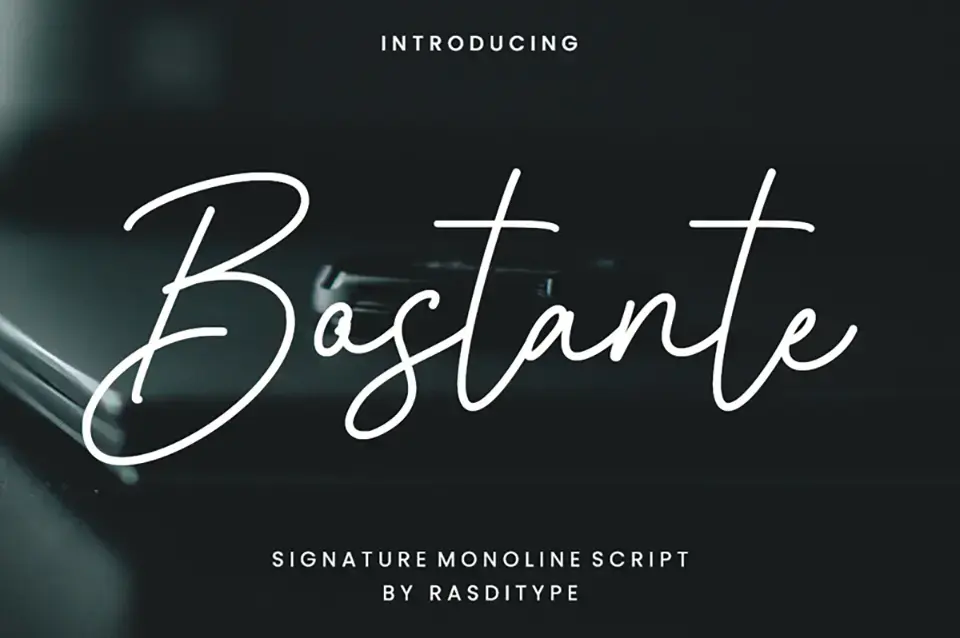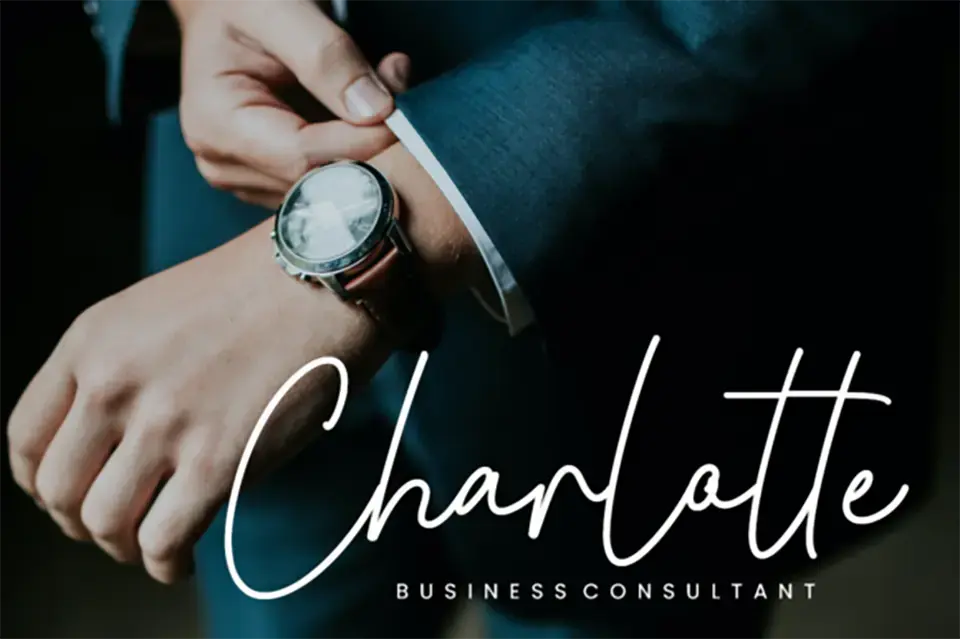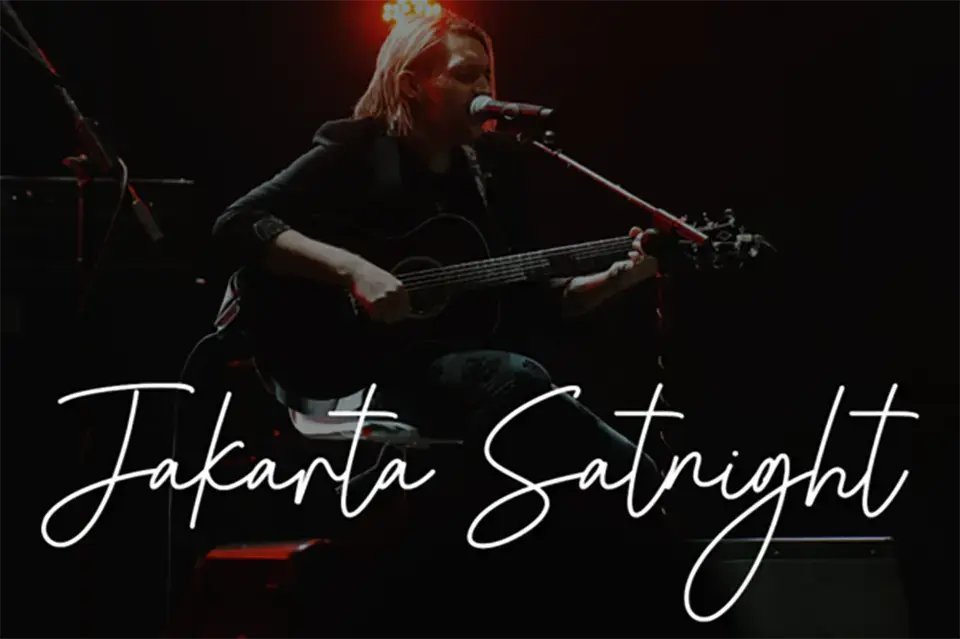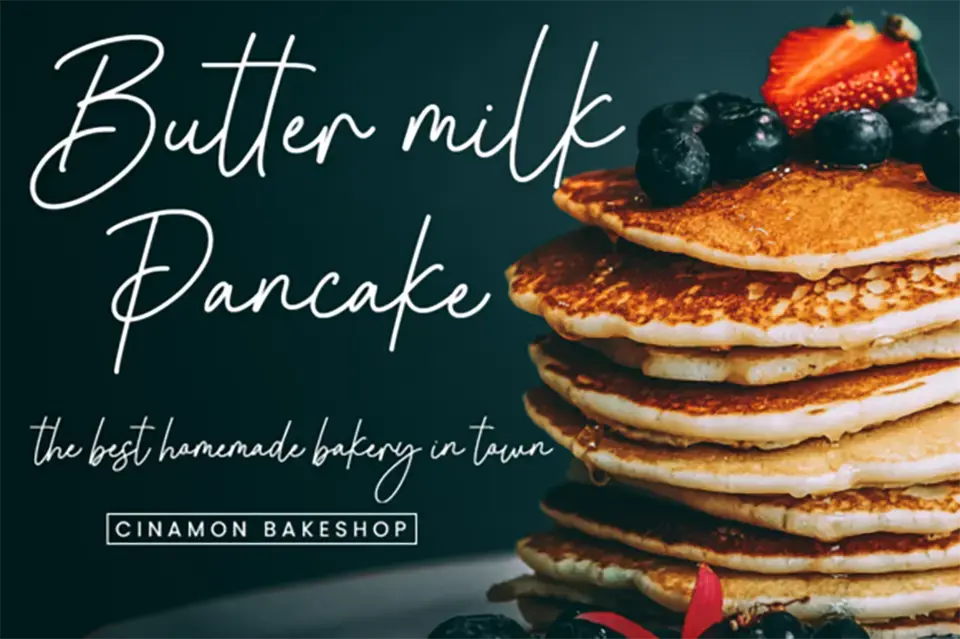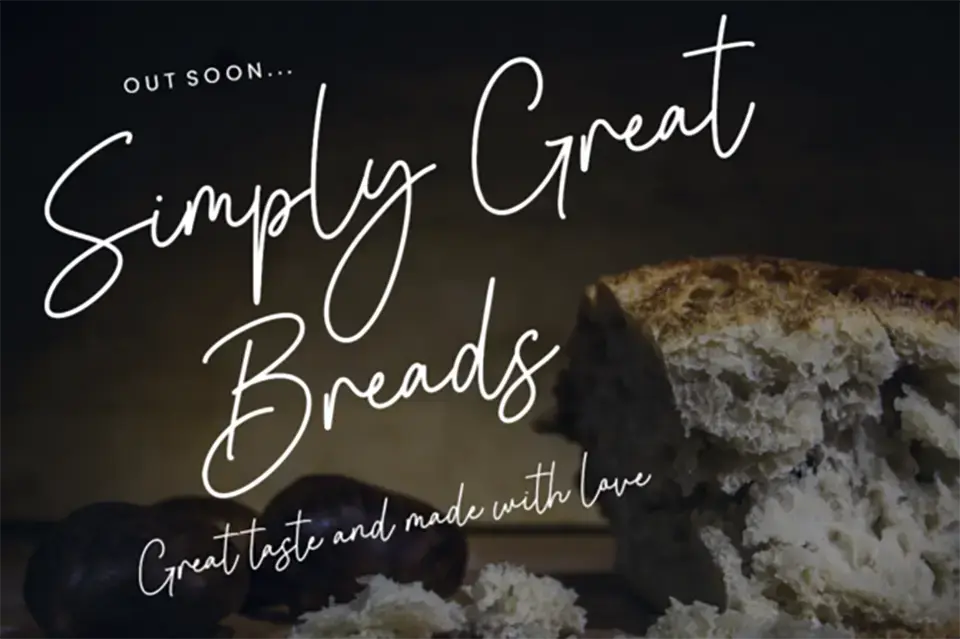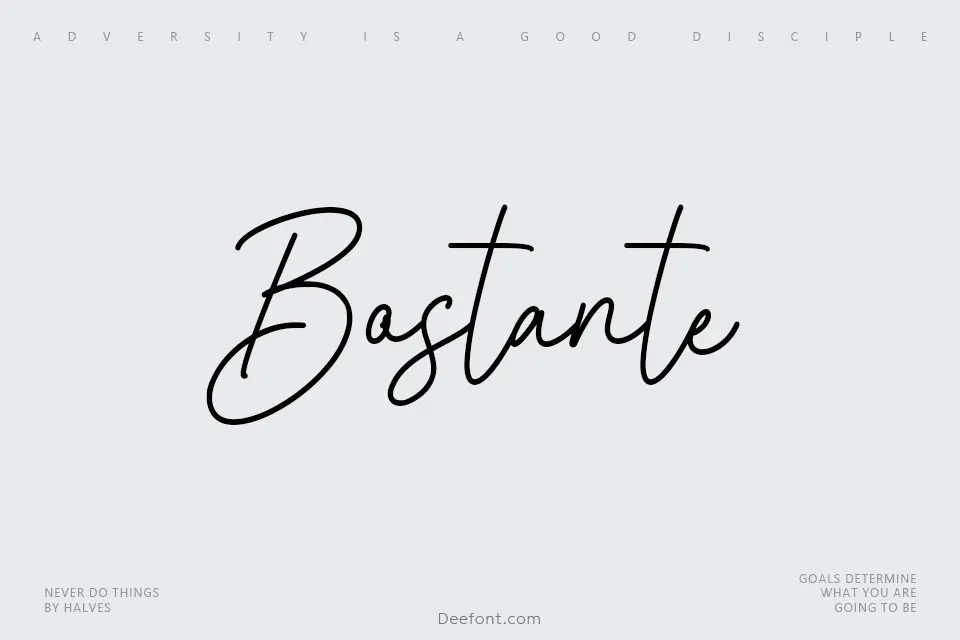
Bostante Font
Bostante Font is a contemporary handwritten signature script with smooth monoline strokes, natural curves and a charming, youthful feel, perfect for stylish logos, invitations, packaging, posters, greeting cards and social media graphics across fashion, beauty and lifestyle projects.